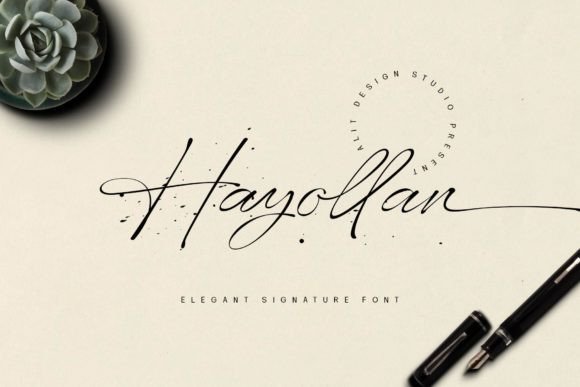
There’s something magical about discovering the perfect font to bring your design to life. Maybe it’s the way the letters seem to dance across the page, or the way the curves and lines evoke the perfect emotions. Whatever it is, you know it when you see it – and for designers, the Hayollan Font is one of those special finds.
Hayollan is a stunning handwritten script font that exudes elegance and sophistication. With its smooth curves and refined lines, it’s the perfect choice for fashion branding, editorial designs, and any project that requires a touch of whimsy and charm. And with its PUA encoding, you’ll have access to a world of glyphs and swashes that will take your designs to the next level.
Hayollan Font Key Features
- Unique Characteristics: Features a unique, modern design with a blend of geometric and organic elements, making it perfect for creative projects and branding
Hayollan Font Review
Overall, I think Hayollan Font is a decent font, but it has some areas that could be improved. Here’s my honest take:
- The Hayollan Font has a unique and stylish design, which can be great for creative projects or branding.
- The font is highly legible, even at smaller sizes, which is essential for digital use.
- Hayollan Font supports a wide range of languages, making it a great option for global projects.
- The font’s weight and line variations could be more nuanced, which might limit its use in certain contexts.
- Some users might find the font’s style too elaborate or overwhelming, especially for body text.
- The font’s download size is relatively large, which could impact website loading times or be a concern for low-bandwidth users.
Overall, I think Hayollan Font is a solid choice for designers who want a stylish and legible font for their projects. However, it’s essential to consider the limitations and potential drawbacks before using it extensively. With some careful consideration, Hayollan Font can be a valuable addition to any designer’s toolkit.
Open Sans is a popular sans-serif font designed by Steve Matteson. It is known for its clean and modern design, making it suitable for a wide range of applications, including digital products, logos, and branding materials. Open Sans is a great alternative to Hayollan Font for designers who want a similar feel without the limitations of a more obscure font.
Comparison: Open Sans has a more neutral and modern feel compared to Hayollan Font’s unique and artistic style. While Hayollan Font is more suited for creative projects, Open Sans is a versatile font that can be used for both creative and corporate projects.
Lato is a sans-serif font designed by Łukasz Dziedzic. It has a modern and elegant design, making it suitable for digital products, logos, and branding materials. Lato is a great alternative to Hayollan Font for designers who want a similar feel with a more polished and refined design.
Comparison: Lato has a more refined and sophisticated design compared to Hayollan Font’s unique and artistic style. While Hayollan Font is more suited for creative projects, Lato is a versatile font that can be used for both creative and corporate projects.
Montserrat is a sans-serif font designed by Julieta Ulanovsky. It has a modern and urban design, making it suitable for digital products, logos, and branding materials. Montserrat is a great alternative to Hayollan Font for designers who want a similar feel with a more edgy and modern design.